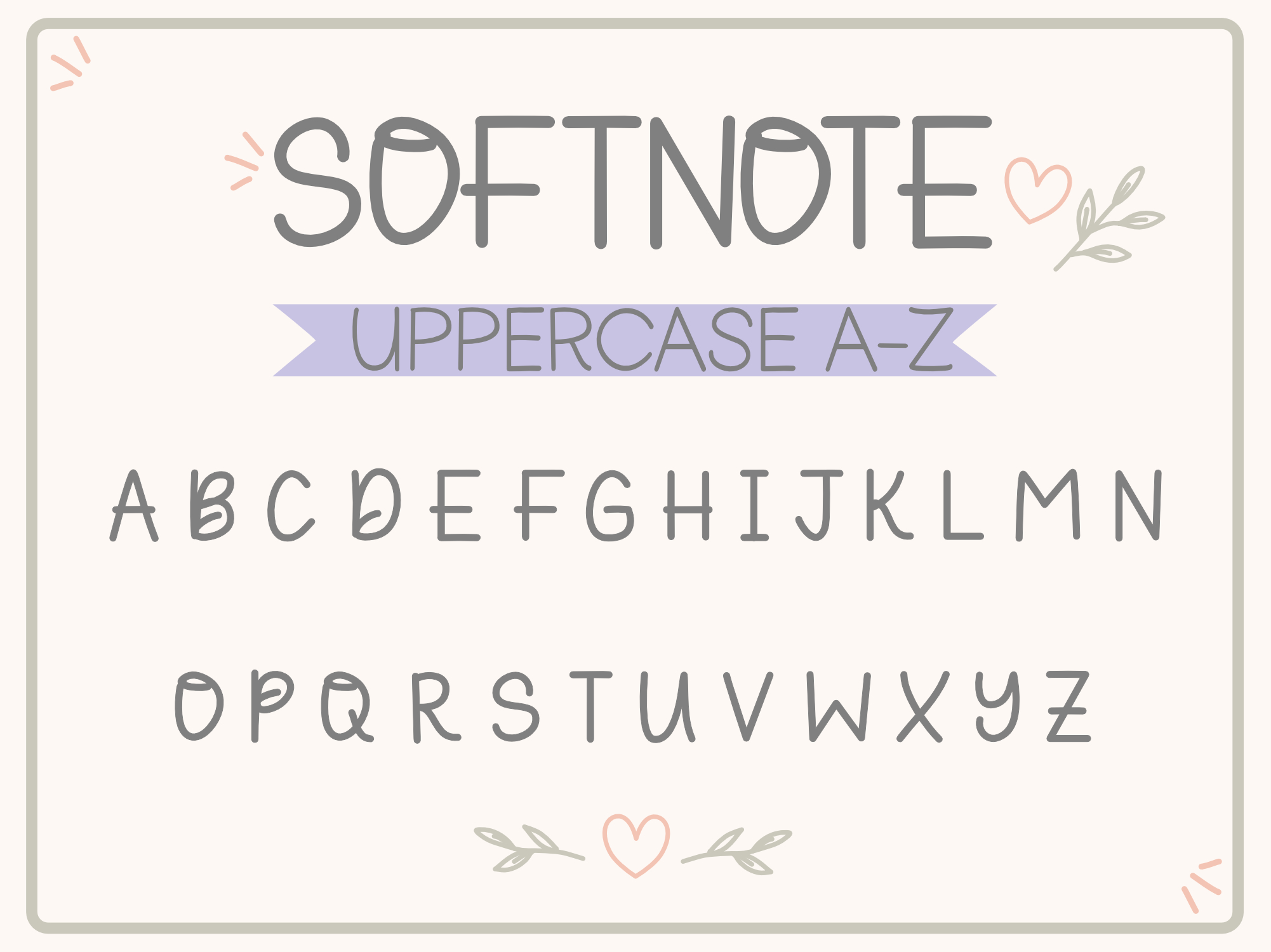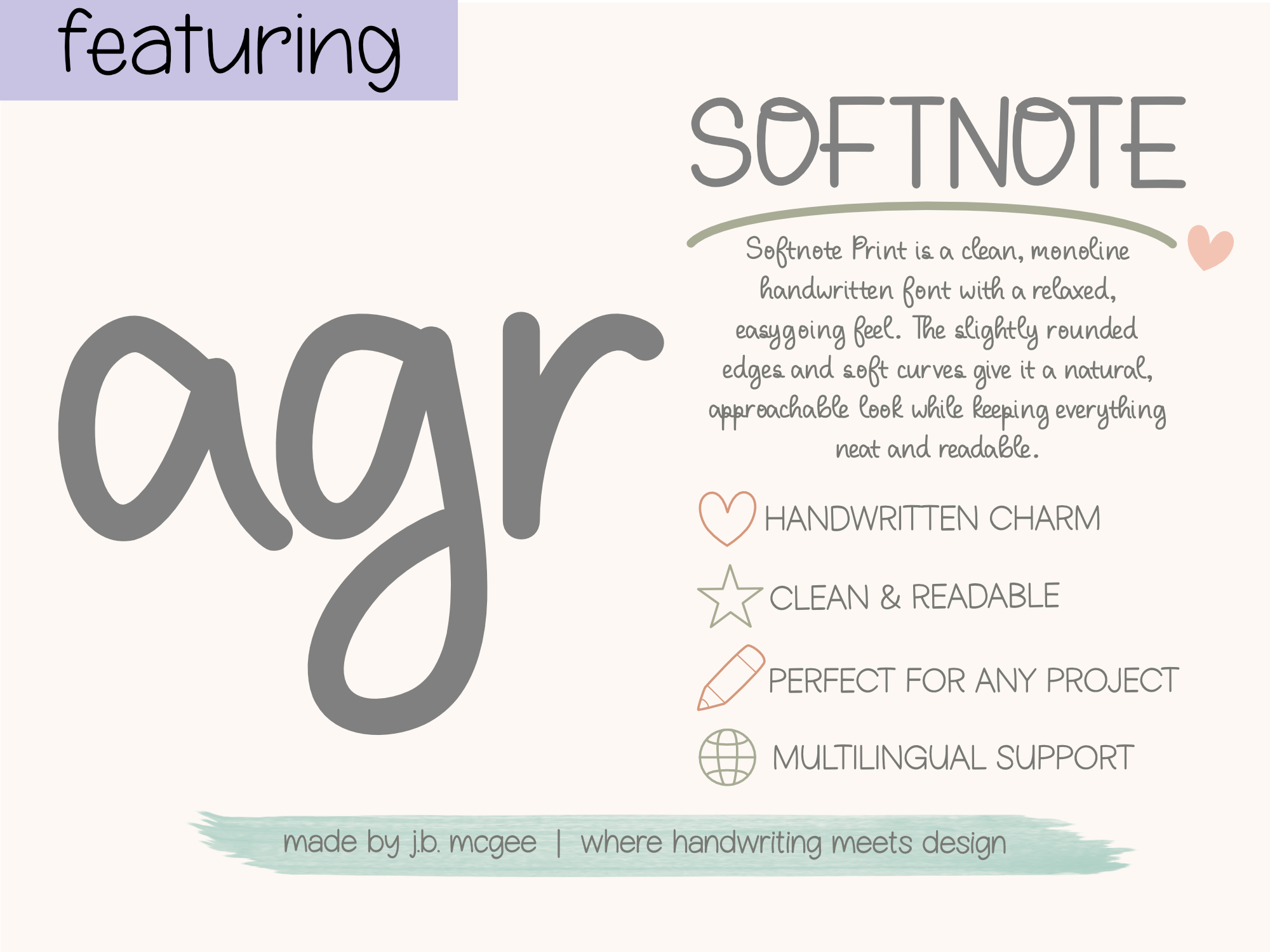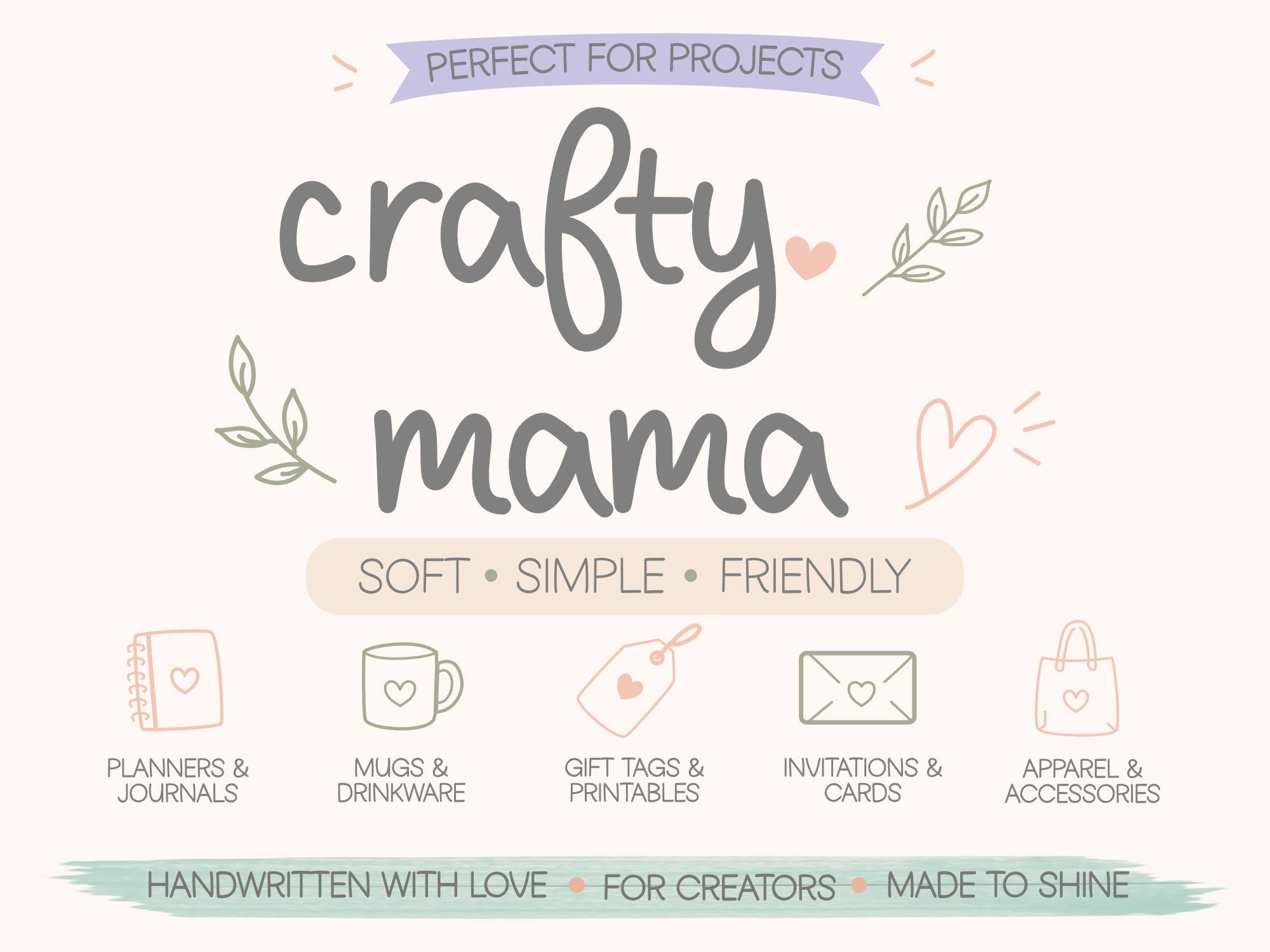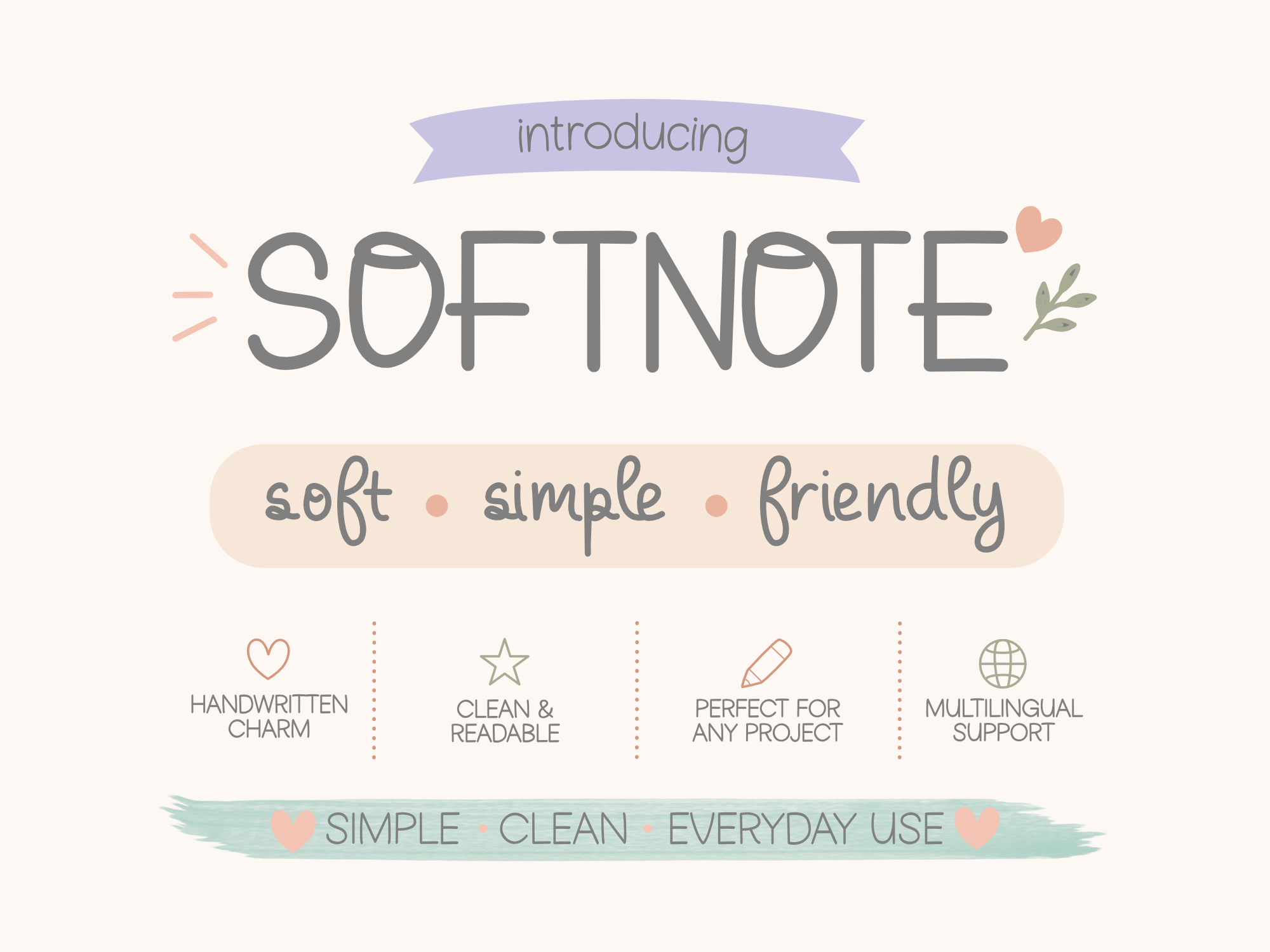
Softnote Font
Soft. Simple. Friendly.
Softnote Print is a clean, monoline handwritten font with a relaxed, easygoing feel. The slightly rounded edges and soft curves give it a natural, approachable look while keeping everything neat and readable. It has just enough personality to feel handwritten without losing that everyday usability.
This font works well for planners, worksheets, labels, classroom materials, and casual branding. It’s especially good anywhere you want something friendly and simple, without looking messy or overly stylized.
Monoline, consistent stroke weight
Soft, rounded structure
Clean but not rigid
Casual and approachable